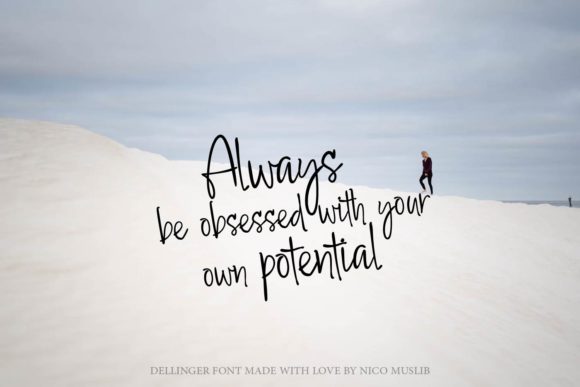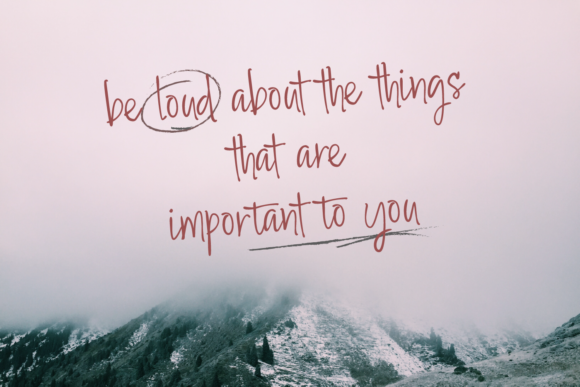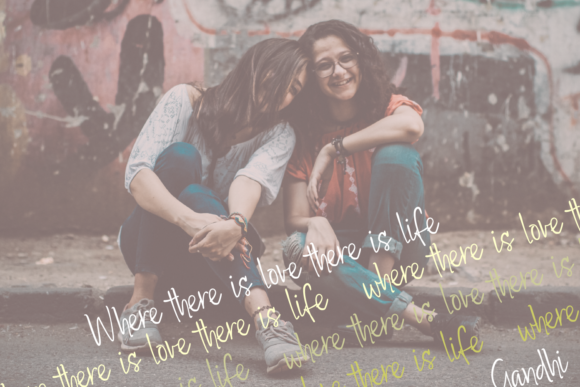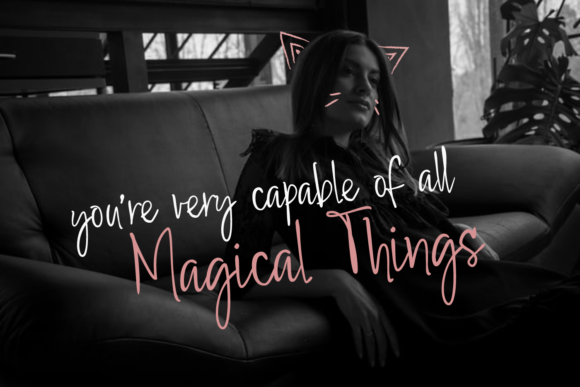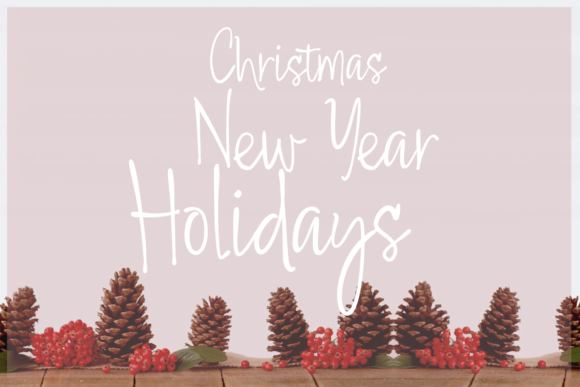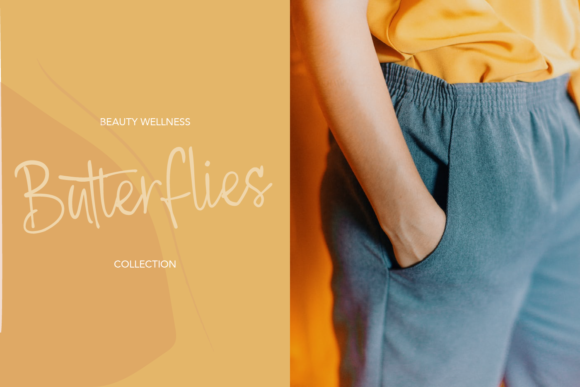
The Ultimate Guide to Dellinger Font: Elevate Your Designs with this Unique Handwritten Font
I’ll never forget the design project that led me to discover the Dellinger font. I was working on a branding campaign for a trendy coffee shop, and I needed a font that would capture the relaxed, yet stylish vibe of their brand. After hours of scrolling through font libraries and testing out different options, I stumbled upon Dellinger. Its unique, handwritten charm instantly resonated with me, and I knew I had found the perfect fit. In this article, I’ll share my experience with Dellinger, its features, and how to make the most of it in your designs.
An Honest Review of Dellinger Font
What I Love About Dellinger ✨
- ✅ Unique and beautiful touch: Every letter in Dellinger has a distinct character that adds a personal touch to your designs.
- ✅ Relaxed and friendly vibe: Dellinger exudes a sense of calmness and approachability, making it perfect for brands that want to appear down-to-earth.
- ✅ Highly versatile: Whether you’re designing logos, quotes, or branding materials, Dellinger adapts seamlessly to different contexts.
- ✅ Easy to read: Despite its unique style, Dellinger remains highly legible, even at smaller font sizes.
- ⚠️ Limited formal applications: Due to its handwritten nature, Dellinger might not be the best choice for formal or corporate designs.
- ⚠️ May require adjustments for longer texts: While Dellinger is generally easy to read, longer texts might require font size or line spacing adjustments for optimal readability.
A Practical Guide to Using Dellinger Font
The Backstory of Dellinger Font
Dellinger font was designed with the intention of creating a unique, handwritten font that captures the essence of a relaxed, friendly vibe. The designer aimed to craft a font that would be both beautiful and highly legible, making it perfect for a wide range of design applications. While the designer’s true identity remains a mystery, their creation has undoubtedly made a lasting impact on the design community.
| Font Name | Dellinger Font |
| Author | Nico Muslib |
| What type of designs is Dellinger best suited for? | Dellinger is ideal for creating eye-catching logos, branding materials, and quotes. Its unique, handwritten style makes it perfect for designs that require a personal touch. |
| Is Dellinger suitable for formal designs? | While Dellinger is a beautiful font, its handwritten nature might make it less suitable for formal or corporate designs. However, it can still be used in certain contexts, such as creative industries or lifestyle brands. |